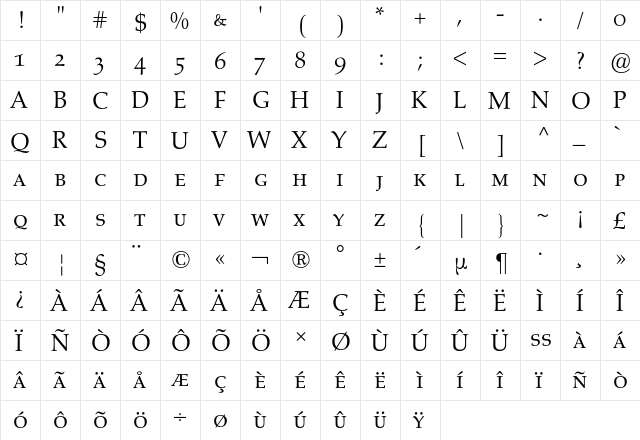
Aldus Expert BQ Regular
Design Context for Aldus Expert BQ Typeface
Aldus Expert BQ is a composed and adaptable typeface that performs quietly and consistently across a wide range of design contexts.